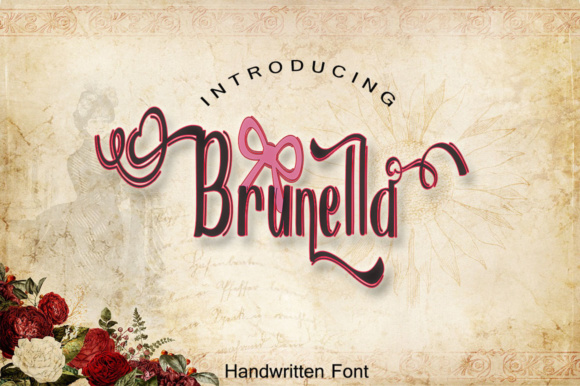
Brunella Font: Elevate Your Designs with a Unique Handwritten Typeface
In the world of typography, a good font can make all the difference in the success of a design project. Whether you’re a seasoned designer or a crafty DIY enthusiast, finding the right font can be a daunting task. That’s where Brunella Font comes in – a stunning, unique handwritten typeface that’s sure to elevate your designs to the next level. In this article, we’ll dive into the features and benefits of Brunella Font, and explore how it can be used to create beautiful and bold character fonts for various projects.
What is Brunella Font?
Brunella Font is a one-of-a-kind handwritten typeface that’s designed to add a touch of elegance and sophistication to any design project. With its unique and stylish letterforms, Brunella is perfect for creating logos, posters, photos, and more. This versatile font is suitable for a wide range of applications, from branding and advertising to crafting and scrapbooking.
Key Features of Brunella Font
So, what sets Brunella Font apart from other typefaces? Here are some of its key features:
- Unique Handwritten Style: Brunella Font boasts a distinctive handwritten style that’s both elegant and playful.
- Stylistic Sets: Brunella includes many stylistic sets, allowing you to mix and match different letterforms to create a truly unique look.
- Bold Character Font: Brunella can be used to create bold and eye-catching character fonts that are sure to grab attention.
- Versatile: Brunella Font is suitable for a wide range of design projects, from logos and posters to photos and crafts.
Using Brunella Font in Your Designs
So, how can you use Brunella Font in your designs? Here are a few ideas to get you started:
Logos and Branding
Brunella Font is perfect for creating unique and memorable logos that will help your brand stand out. With its elegant and sophisticated style, Brunella is ideal for businesses and organizations that want to convey a sense of luxury and refinement.
Posters and Flyers
Whether you’re promoting a concert, sale, or event, Brunella Font is a great choice for creating eye-catching posters and flyers. Its bold and playful style is sure to grab attention and leave a lasting impression.
Photos and Scrapbooking
Brunella Font is also perfect for adding a personal touch to your photos and scrapbooking projects. With its unique and stylish letterforms, Brunella can be used to create beautiful and personalized journaling and titles.
Tips and Tricks for Working with Brunella Font
Here are a few tips and tricks to help you get the most out of Brunella Font:
- Experiment with Different Stylistic Sets: Don’t be afraid to try out different stylistic sets to create a unique look that suits your design.
- Use Brunella with Other Fonts: Brunella Font pairs well with other fonts, so don’t be afraid to experiment with different combinations.
- Pay Attention to Kerning and Tracking: Make sure to adjust the kerning and tracking to ensure that your text looks professional and polished.